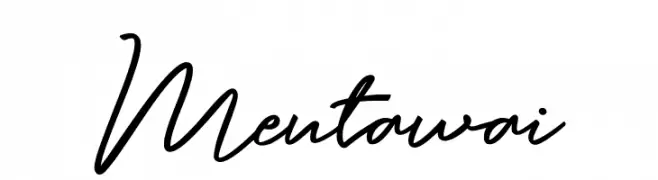
A graceful and elegant script font with flowing, handwritten strokes.
A flowing, elegant cursive font with a modern touch, ideal for personal and creative projects.
An elegant script font with high contrast and flowing, cursive style.
An elegant script font with flowing, cursive letterforms and classic sophistication.